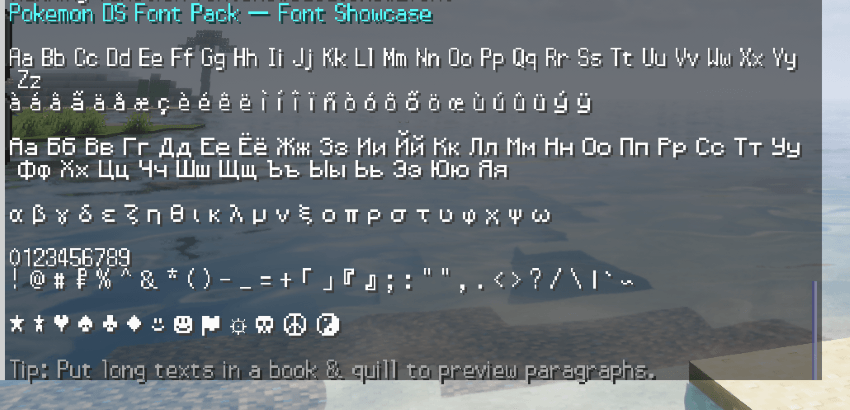
Pokémon DS Font Pack
Rediscover the charm of the classic Pokémon DS era! This lightweight resource pack replaces Minecraft’s default font with the authentic Pokémon DS Font, recreated from the original handheld games.
Perfect for Cobblemon, retro adventure packs, or any nostalgic setup — every menu, quest, and chat message now feels like it came straight from a DS screen.
💡 Features
- Authentic Pokémon DS-inspired typography
- Pixel-perfect readability for menus, HUDs, and quest UIs